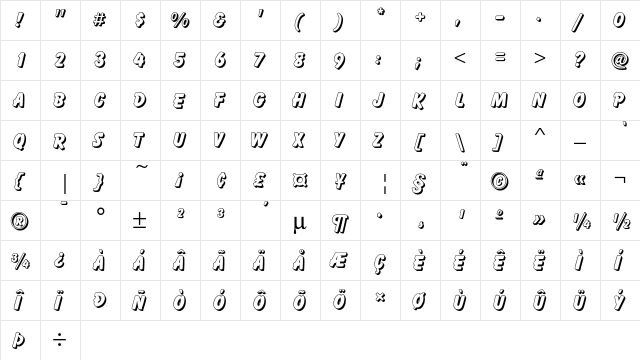
BalloonEF DropShadow Font Preview
BalloonEF DropShadow
BalloonEF DropShadow Font Details
Design Context for BalloonEF Typeface
BalloonEF is built around its visual character rather than neutral utility — its distinctive forms are designed to make an impression at display sizes.
Font Pairing: Pair with a clean neutral sans-serif for body copy to let BalloonEF's character lead without overwhelming the composition.
Pro Tip: Use BalloonEF exclusively at display sizes — it was designed to be seen, not read at length. Let a neutral companion handle body copy.